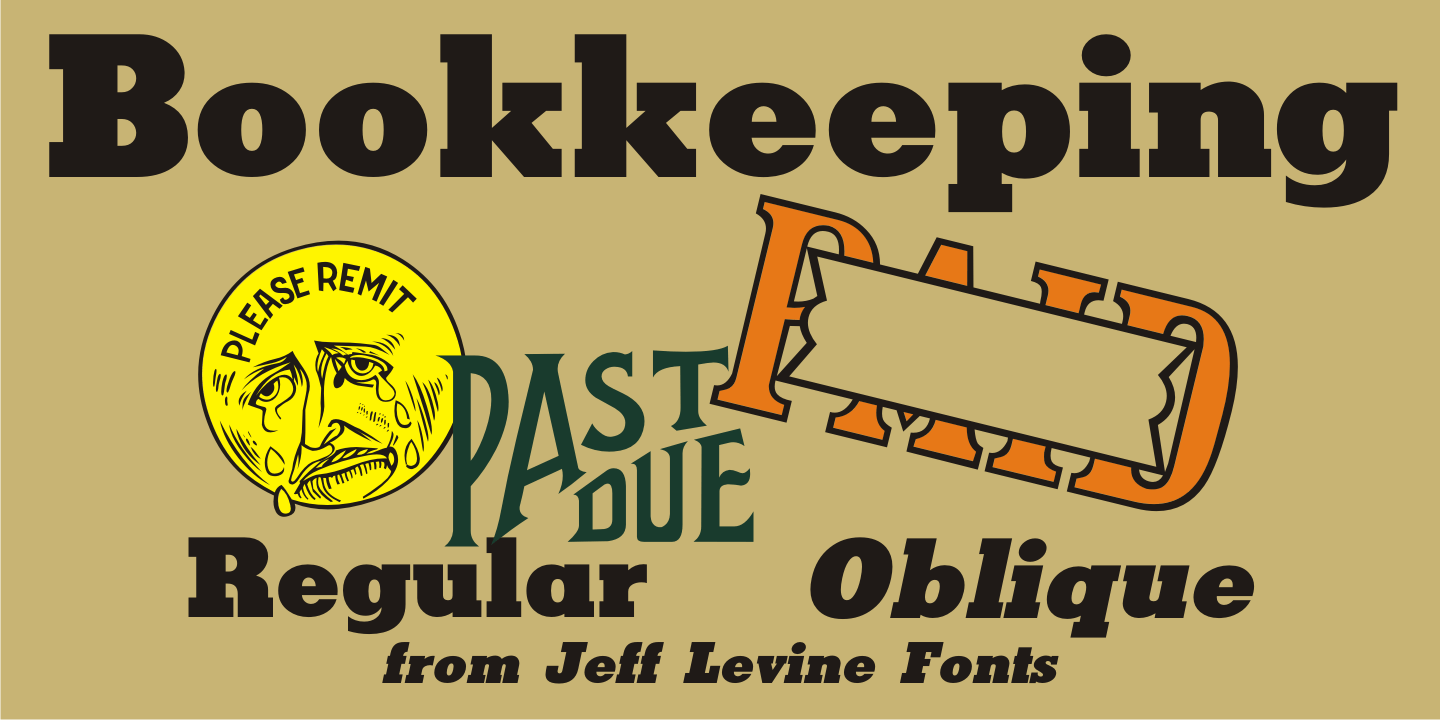
Bookkeeping
Buy NowThe extra bold version of R. Hunter Middleton's 'Karnak' (produced in 1936 for Ludlow) served as the model for Bookkeeping JNL and is a companion to Bookkeeper JNL (the light weight version of this type design).
Middleton based his 'Karnak' family of typefaces on the geometric slab-serif 'Memphis', which was designed in 1929 by Dr. Rudolf Wolf and released originally by the Stempel Type Foundry of Germany.
According to Wikipedia, 'Karnak' was a named after the Karnak Temple Complex in Egypt, in reference to the fact that early slab serifs were often called 'Egyptians” as an exoticism by nineteenth-century type founders.”
Bookkeeping JNL is available in both regular and oblique versions.